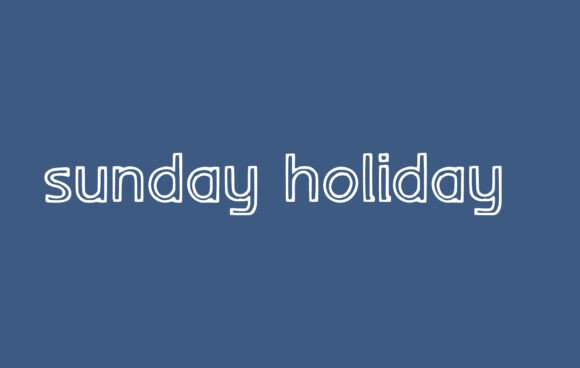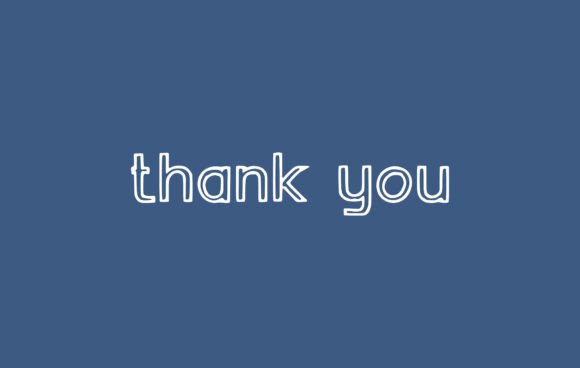
Blakely Font
Blakely is a soft, outlined sans-serif with a friendly and modern look. Its clean, rounded forms and subtle line work give it a fun, youthful personality—great for educational tools, classroom decor, kids' apparel, and branding that calls for clarity with a cute twist.